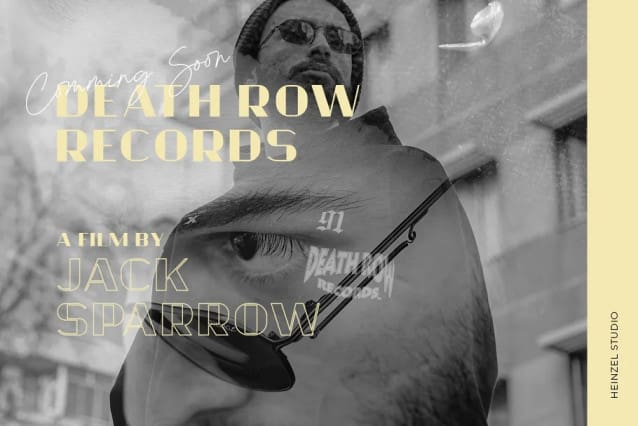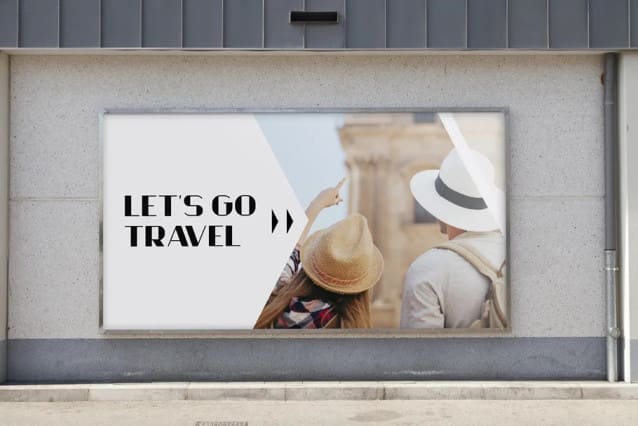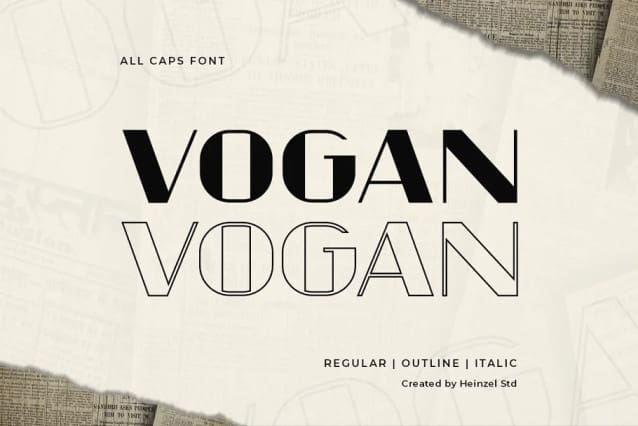
Vogan Font
Vogan Font is a versatile font that comes in both regular and outline versions, both of which are in all capital letters. The regular version of the Vogan typeface features solid, bold characters that are perfect for making a statement. The letters are clean and well-defined, making them highly readable and suitable for a variety of design projects. Whether used for headings, logos, posters, or other creative applications, the regular version of Vogan Typeface commands attention with its bold and impactful appearance.
In contrast, the outline version of Vogan Font provides a different aesthetic. The characters in this version are defined by their outer contours, creating a stylish and modern look. The outline font maintains the overall shape of the letters while allowing the background to show through the center, adding a touch of sophistication and creativity to any design. This version is particularly popular for design projects where a contemporary and edgy vibe is desired.
Both versions of Vogan Font, the regular and the outline, offer a cohesive and visually appealing design language. They can be used individually or in combination, allowing designers to create eye-catching contrasts and unique typographic compositions. Whether you’re designing a logo for a modern brand, a poster for an event, or any other creative project that requires a strong visual impact, Vogan Typeface in its regular and outline forms offers a stylish solution that stands out and leaves a lasting impression.